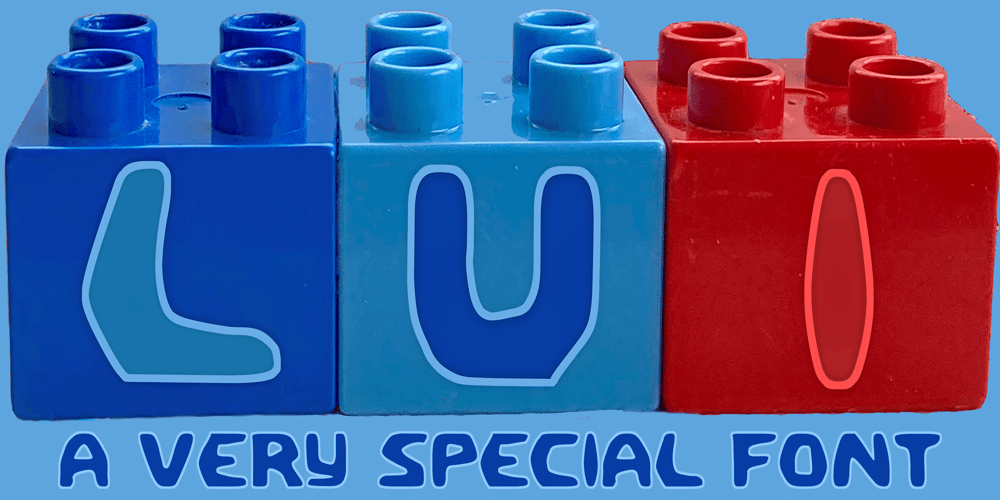
Lui Font Family was designed by Joachim Frank and published by Joachim Frank. Lui contains 1 styles and family package options. The German typeface designer Joachim Frank designed this font 2022.The name stands for his youngest grandson Lui. Naturalness and harmony, soft lines and uniqueness are the characteristics of this font.This font is ideal for logos, advertising, branding, posters, billboards.